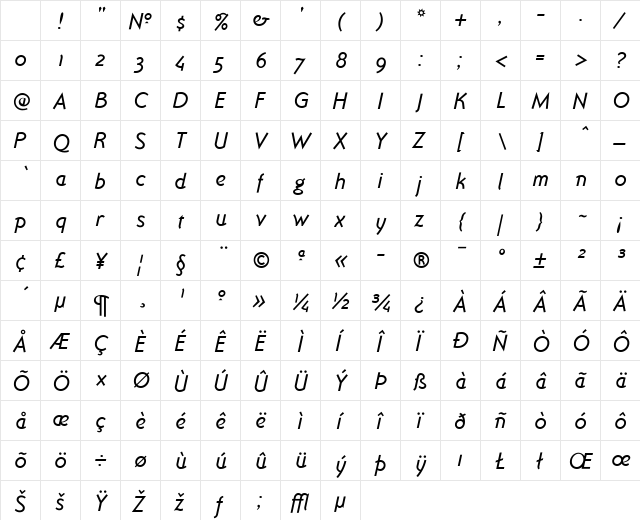
Complete Ottomat Medium Italic glyph index. Displaying only characters natively supported by Ottomat Medium Italic font.
Ottomat is a composed and adaptable typeface that performs quietly and consistently across a wide range of design contexts. The slanted form adds forward momentum and visual energy.
Pro Tip: Use Ottomat for emphasis, pull quotes, and subheadings where its slanted energy can add rhythm to the layout.